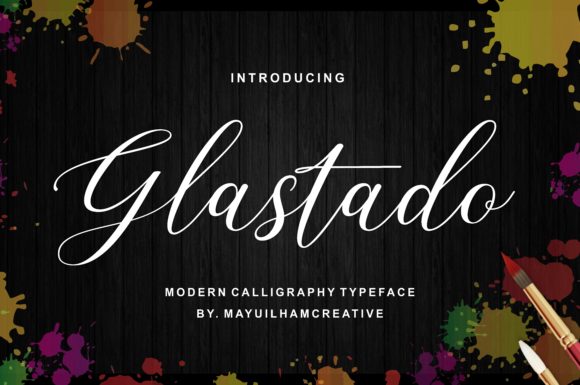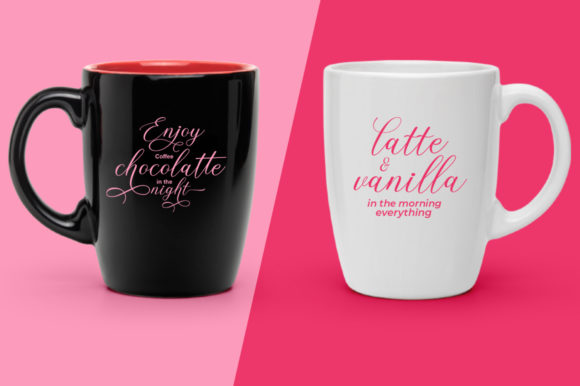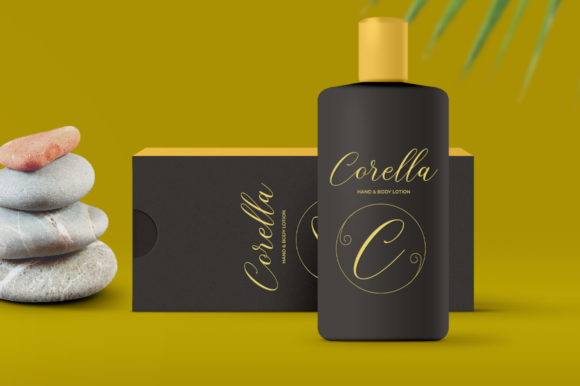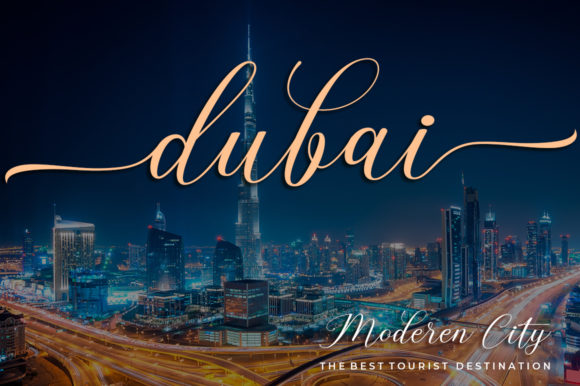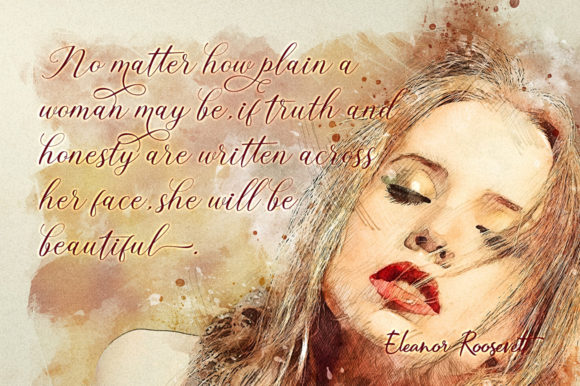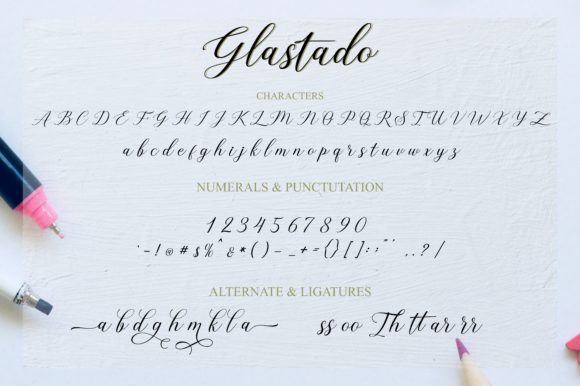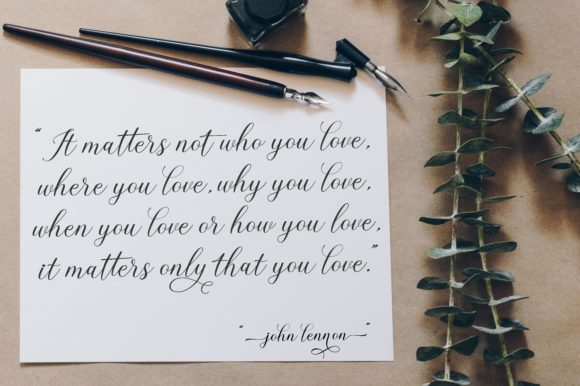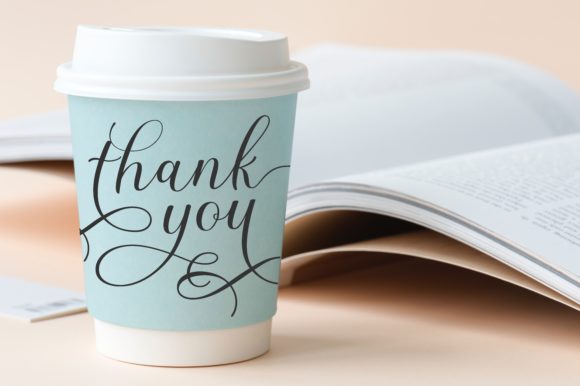
Glastado Font
About Glastado Font
Glastado is a gorgeous script font. It features amazing ligatures and swirly swashes. It is ideal for wedding invitations, magazines, social media, restaurant menus, greeting cards, birthday invitations and much more!